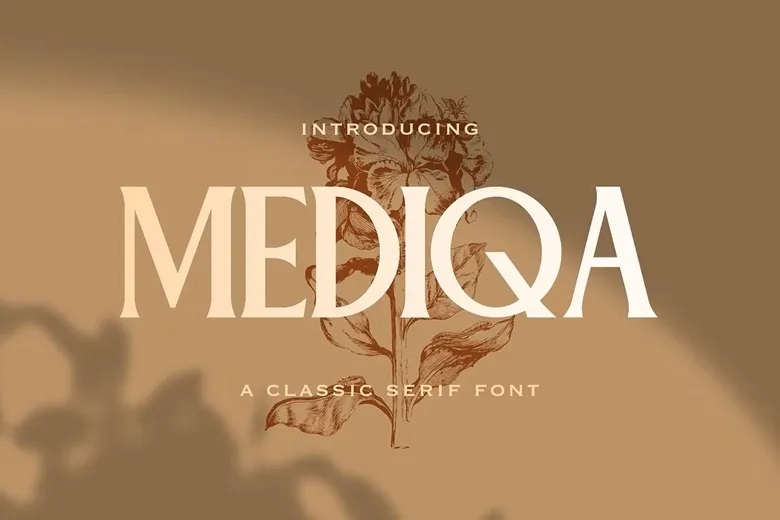
Mediqa Font
Mediqa is a classic serif font with an elegant, timeless feel. Its balanced proportions and refined serifs create a polished look, making it ideal for logos, branding, editorial layouts, headlines, packaging, book covers, and modern typography projects.
Mediqa adds creativity, sophistication, and professionalism to digital and print designs. Its classic structure and elegant details make it a versatile serif font for creating refined, polished layouts.
Mediqa Serif Font